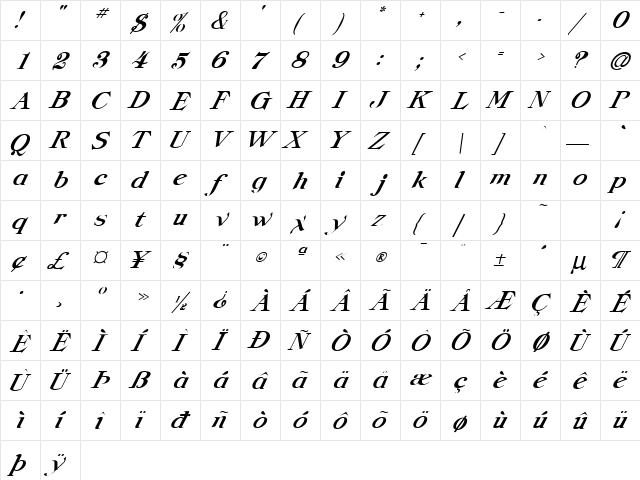
Providence-Ital Normal
Design Context for Providence-Ital Typeface
Providence-Ital is a composed and adaptable typeface that performs quietly and consistently across a wide range of design contexts.